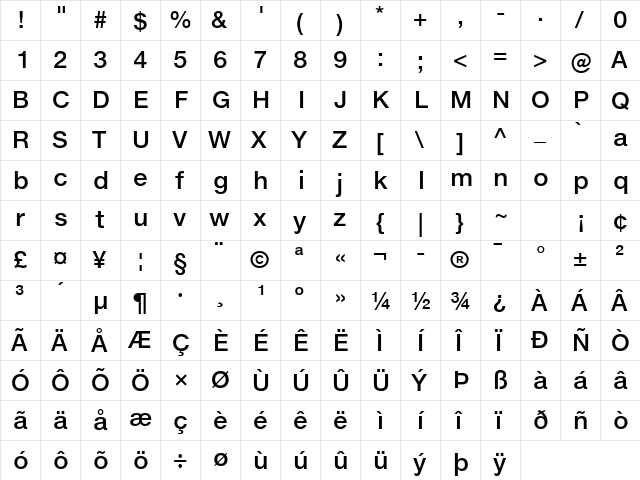
Helvetica Neue ET Pro 65 Medium
| Foundry | Linotype GmbH |
| Designer | Linotype Design Studio |
Design Context for Helvetica Neue ET Pro Typeface
Helvetica Neue ET Pro takes a measured approach to typography — its balanced proportions and neutral character make it a reliable workhorse for both digital and print work.